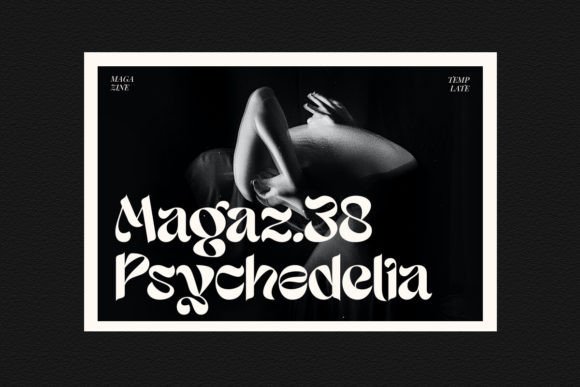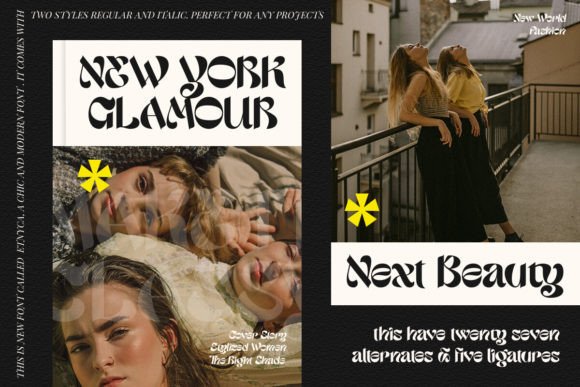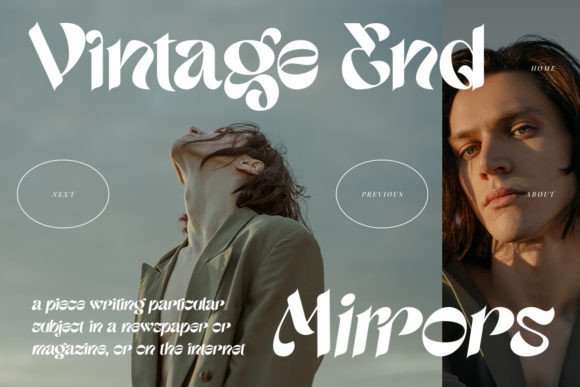
Etnyca Font: Bold & Playful Serif Typography for Vintage Logos
About the Etnyca Font
Explore the possibilities with Etnyca Font, a font that offers both beauty and functionality. Etnyca – fearless and stylish typeface perfect for headlines for print and web. It’s modern, bold, and playful. Perfect if you want to add character to your project.
Etnyca fits perfectly too into those nostalgic mood boards and vintage logos. It comes with Italic style, unique lower and uppercase plus numbers, punctuation & multilingual letters
Etnyca’s bold and playful nature makes it ideal for headlines, short impactful statements, and branding applications where a strong visual identity is key. It excels in posters, logos, and packaging design, adding a touch of vintage-inspired modernity. However, its strong character isn’t suited for body text or lengthy paragraphs; readability suffers at smaller sizes. Avoid using it in UI contexts requiring high legibility.
Pairing Etnyca effectively requires considering its playful boldness. A clean sans-serif like Lato or Open Sans provides a strong contrast and enhances readability when used for supporting text. For a more vintage-inspired feel, consider pairing it with a classic serif such as Garamond or a slightly more modern serif like Playfair Display.
Etnyca’s overall personality is best described as bold, playful, and retro-modern. It suits brands that want to project a confident, slightly nostalgic yet contemporary image – think vintage apparel, craft breweries, or boutique hotels. The italic style adds a touch of elegance that can be used strategically for emphasis.